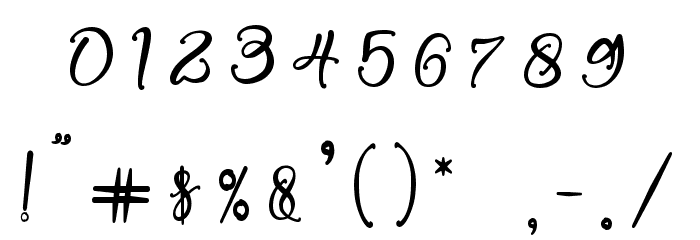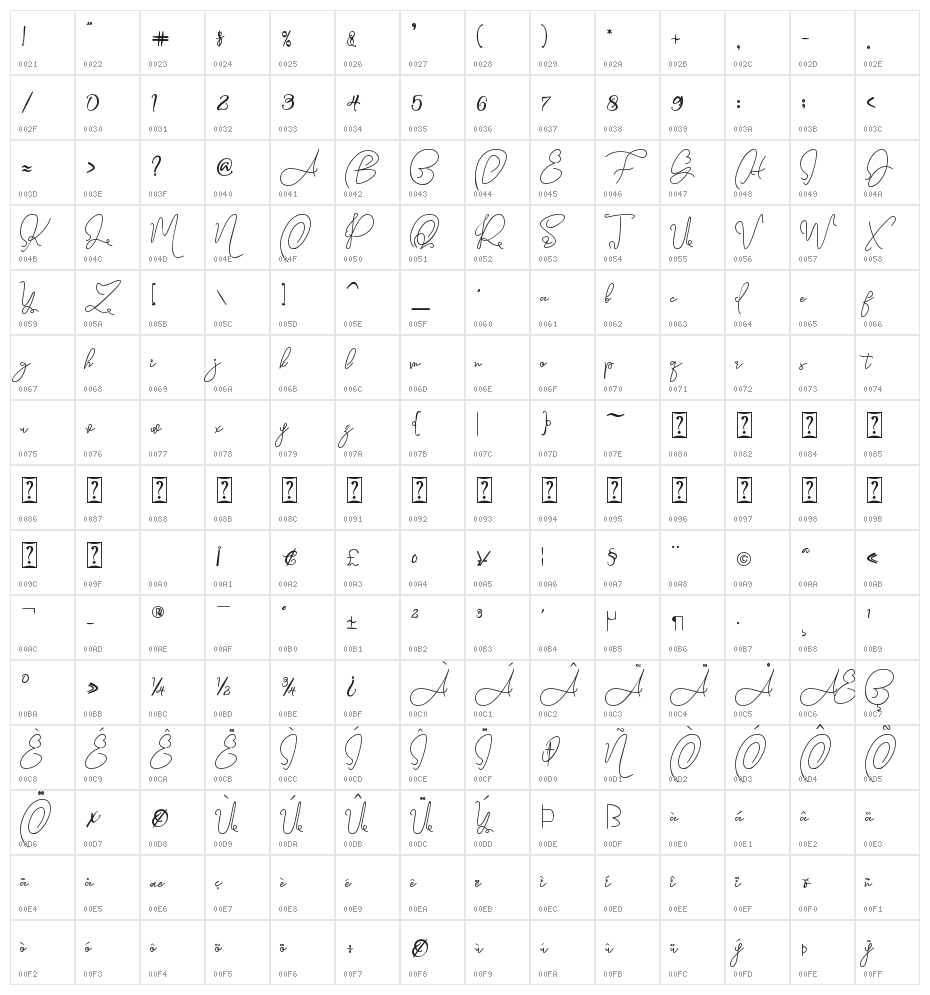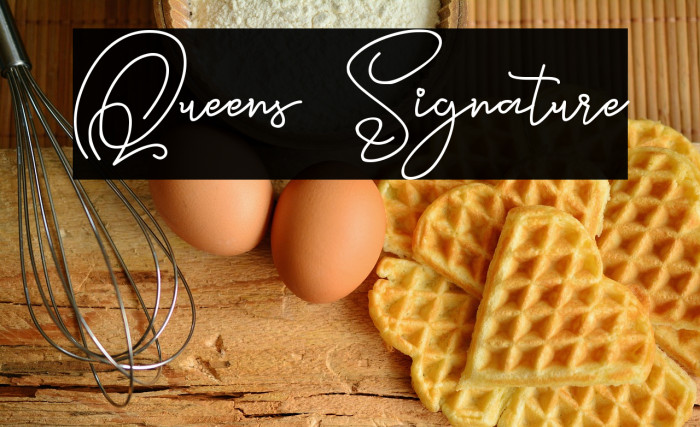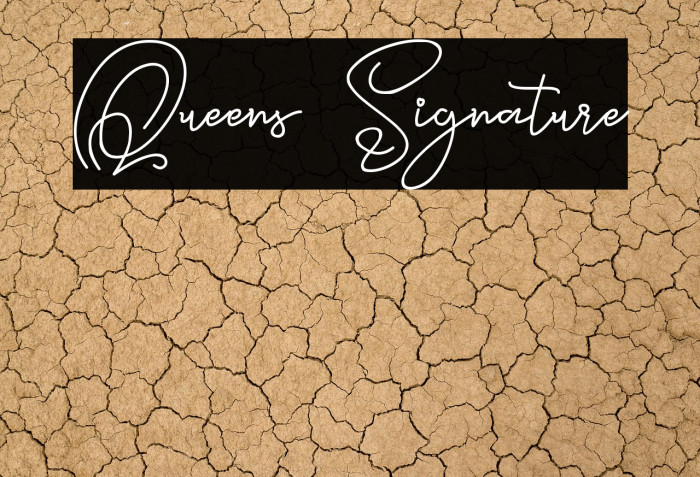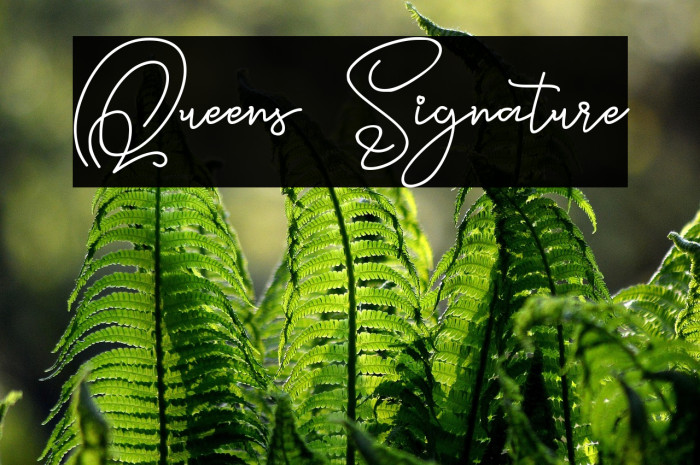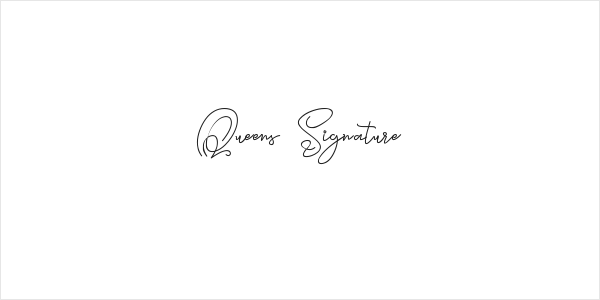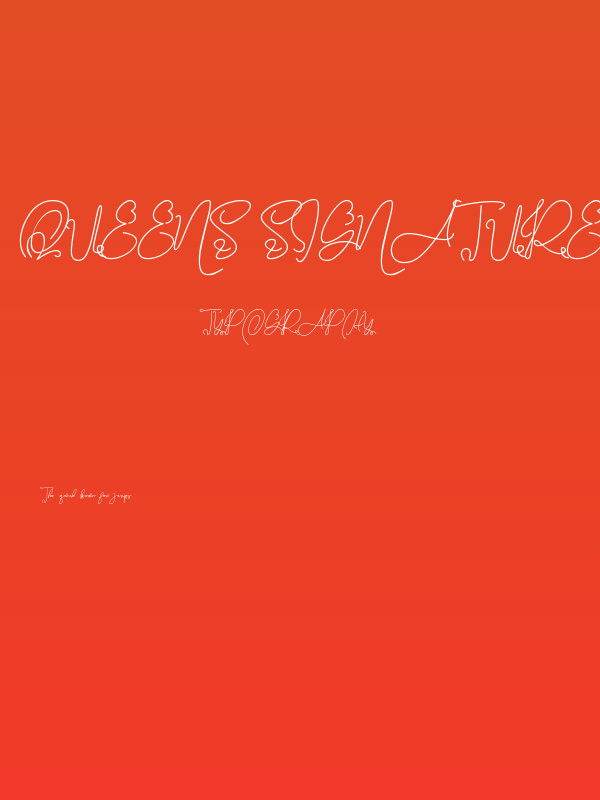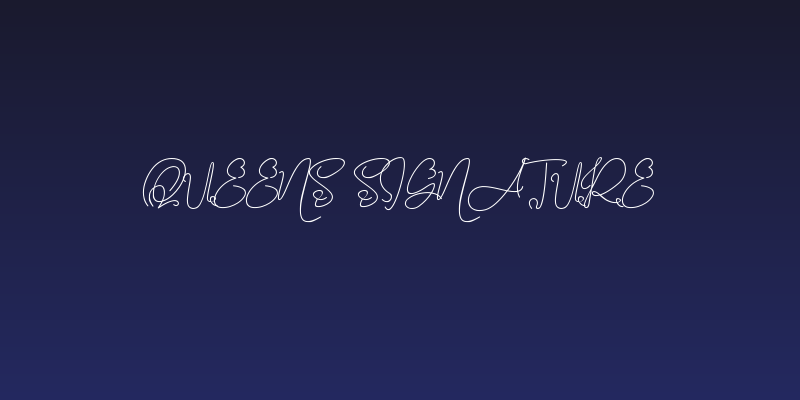
Queens Signature Font
Queens Signature Description
This elegant script font features a flowing, cursive style with intricate loops and swirls, giving it a sophisticated and artistic appearance. The uppercase letters are particularly ornate, with exaggerated flourishes that add a sense of grandeur and elegance. The lowercase letters maintain a consistent style, with smooth, connected strokes that enhance readability while preserving the font's decorative nature. The numerals and special characters are designed to complement the overall aesthetic, featuring similar curves and embellishments. This font is ideal for projects that require a touch of luxury and refinement.
| Proposed Projects | Ideal for wedding invitations, luxury branding, elegant signage, and high-end product packaging. |